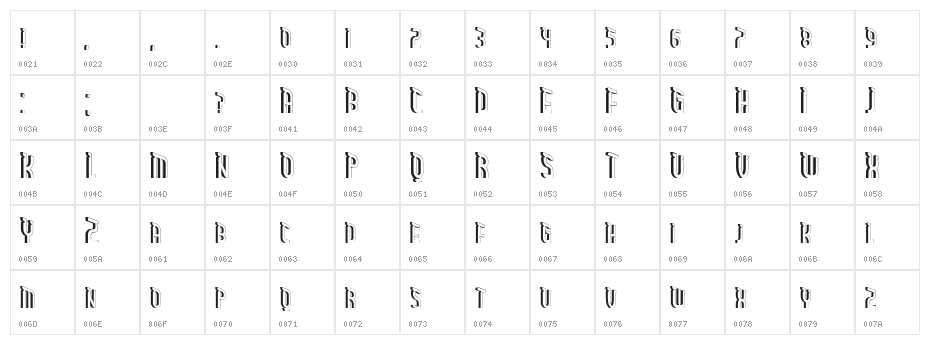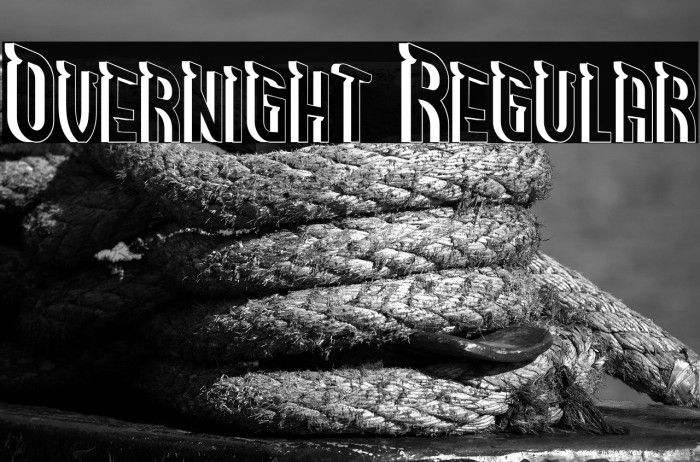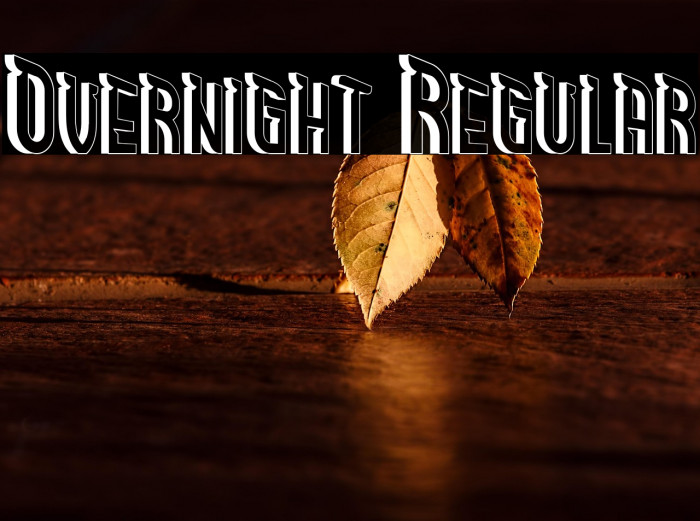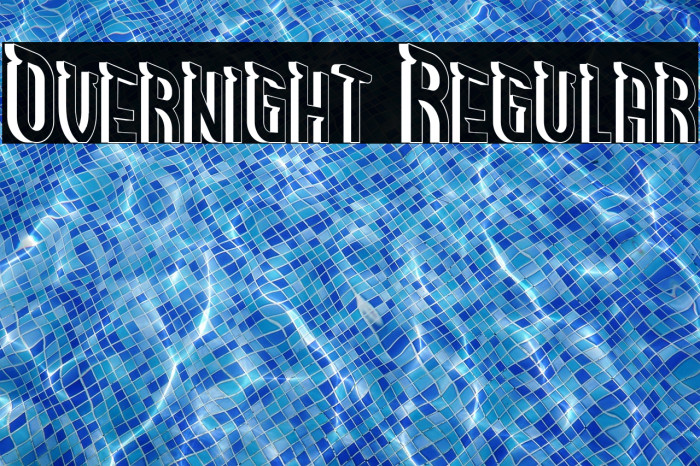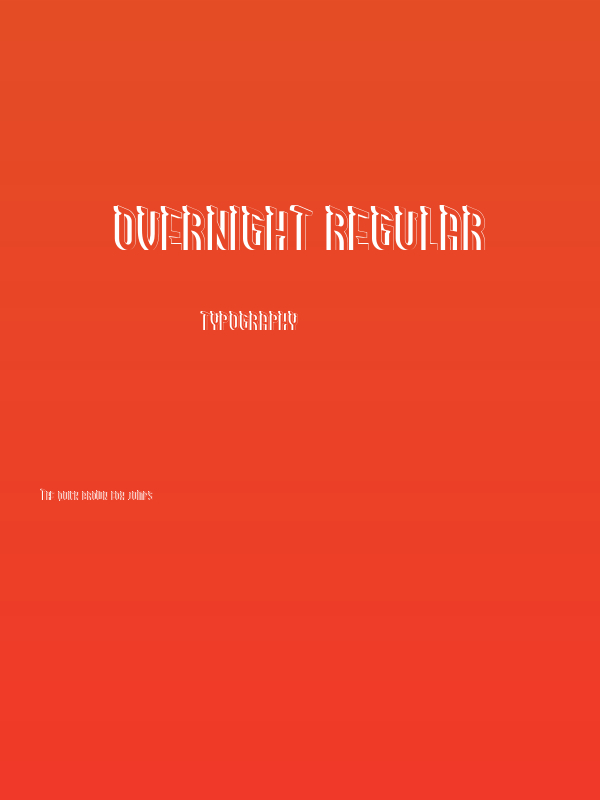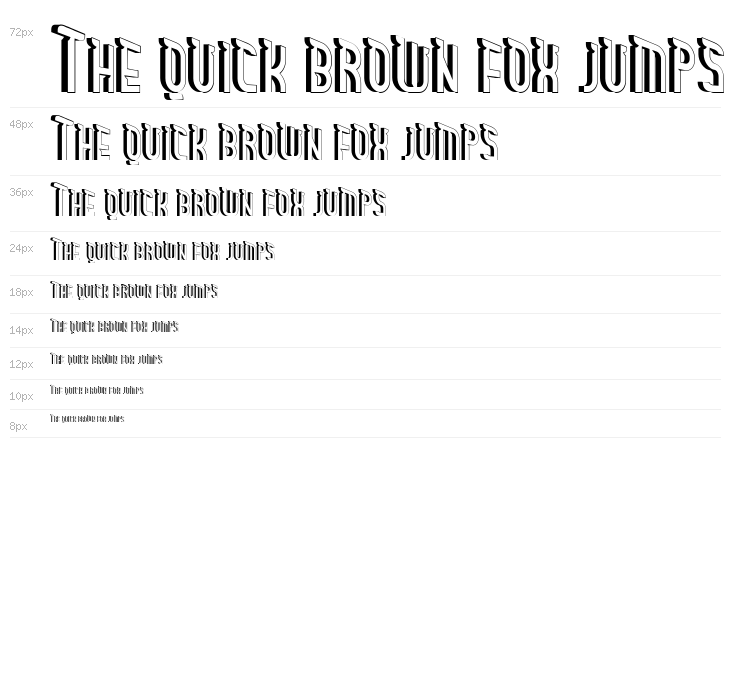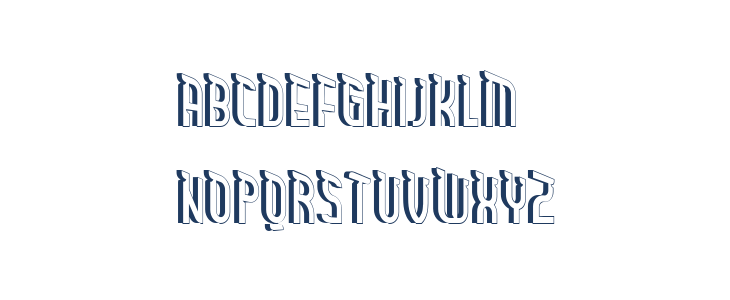
Overnight Regular Font
Overnight Regular Description
This font features a bold, three-dimensional appearance with a shadow effect that gives it a striking and dynamic look. The characters are uppercase and lowercase letters, along with numbers and a selection of special characters. The design is highly decorative, with a modern twist that makes it suitable for eye-catching displays. The shadow effect adds depth and dimension, making the text appear to pop off the page. The font's style is both playful and sophisticated, offering a unique blend of modern aesthetics with a hint of retro charm.
| Proposed Projects | Ideal for posters, headlines, branding, and any project requiring a standout, modern look. |